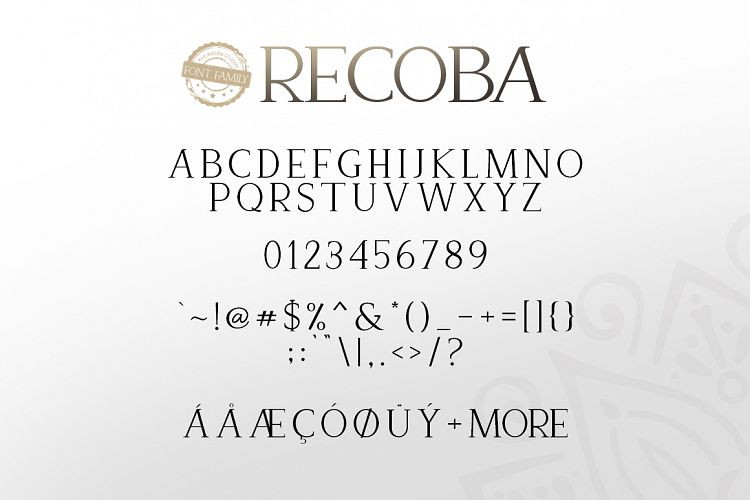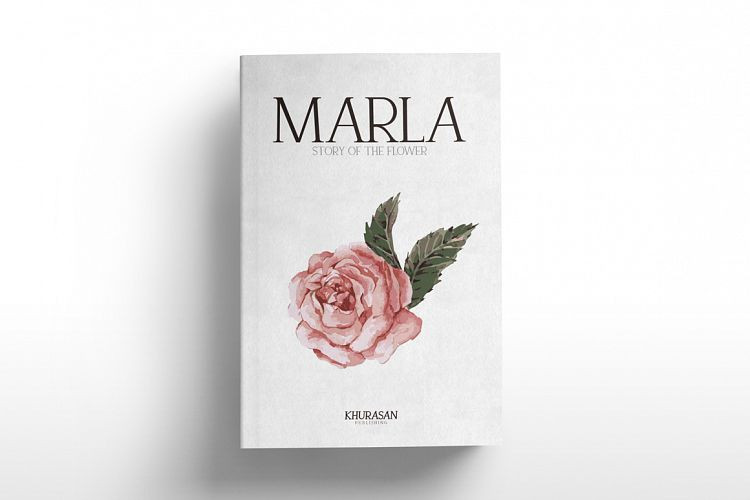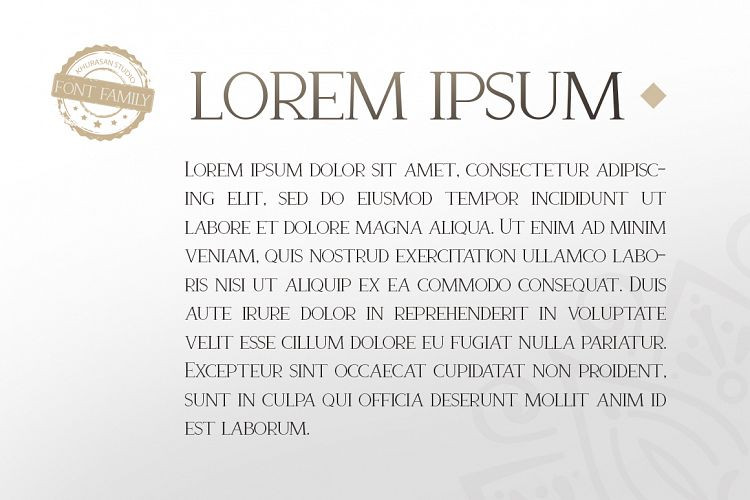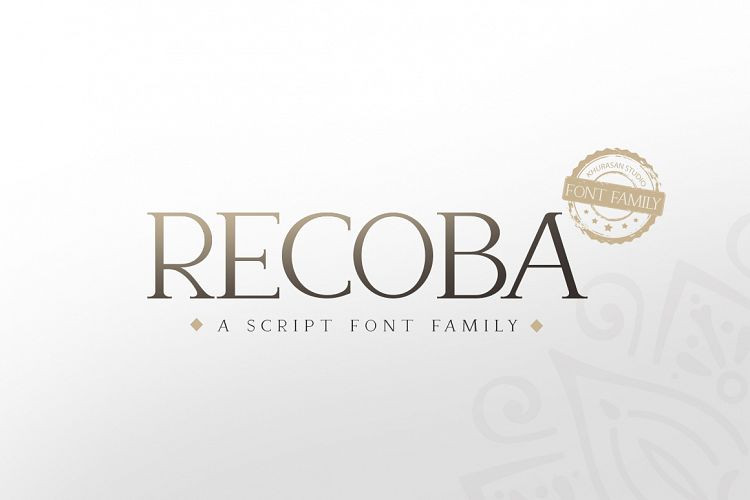
Recoba Font Family
Thank you for looking Recoba Typeface. Geometric original font is created according to current trends and is suitable for minimalistic modern designs. It is designed and shared by khurasan. Recoba Font Family is elegant and charming serif typeface both modern and gorgeous. Recoba has 3 different styles. Recoba it’s perfect for , poster, logo, magazine, cover, banner, tshirt and headers, or even large-scale artwork.